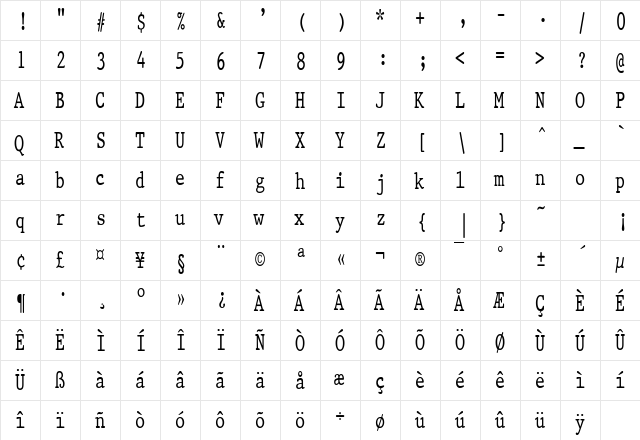
PrestigeCondensed Regular
Design Context for PrestigeCondensed Typeface
PrestigeCondensed offers clean, dependable letterforms without strong stylistic allegiance, making it a practical choice for designers who need flexibility. The condensed width makes it efficient for tight spaces without sacrificing legibility.